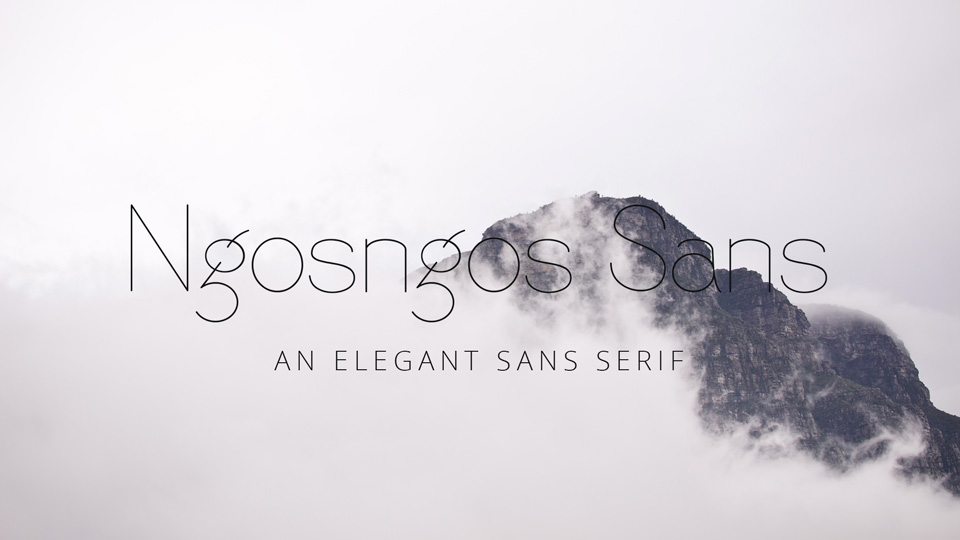
Download Ngosngos Sans font, a clean minimalist sans serif typeface with touch of elegance. Ngosngos Sans font is suitable for text blocks and short messages, social media, cards and more.